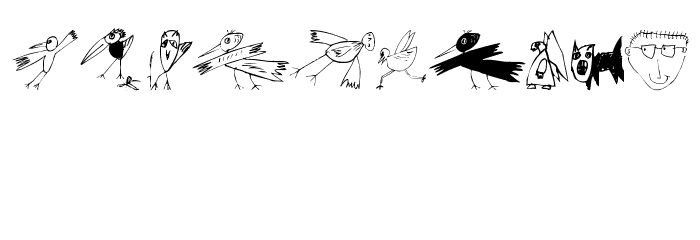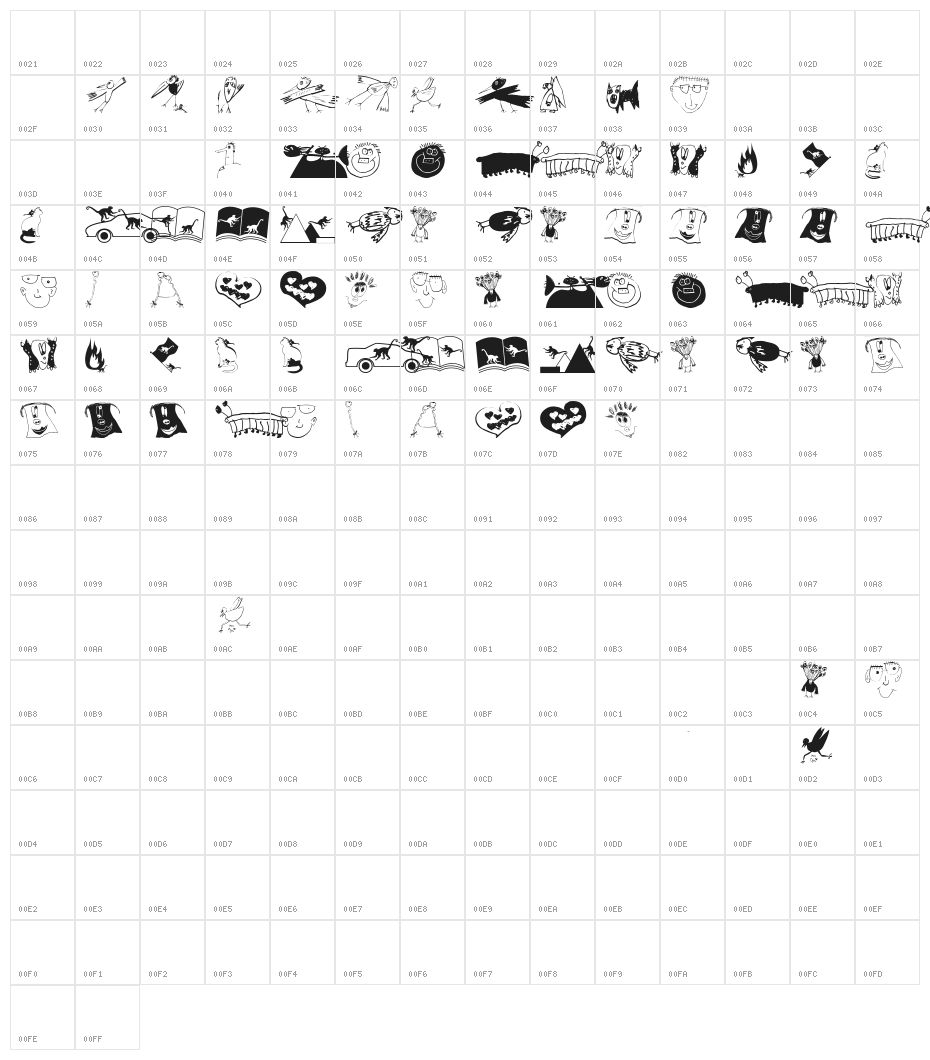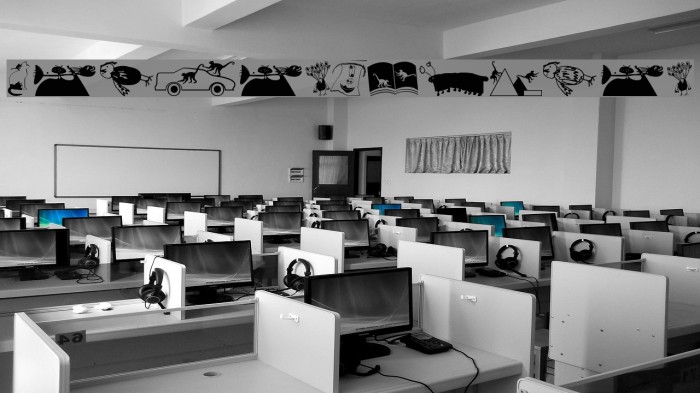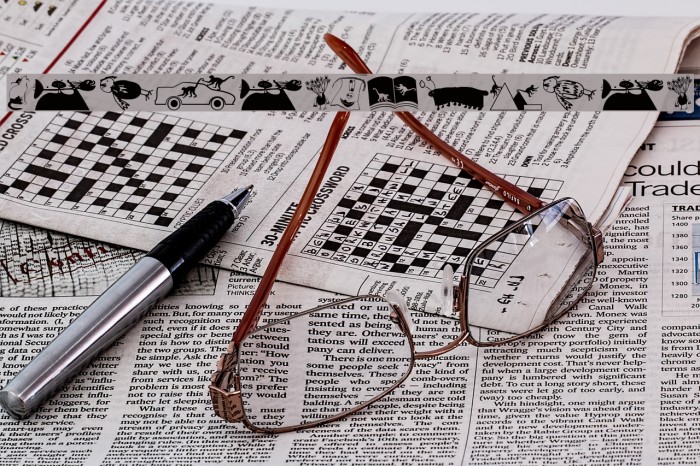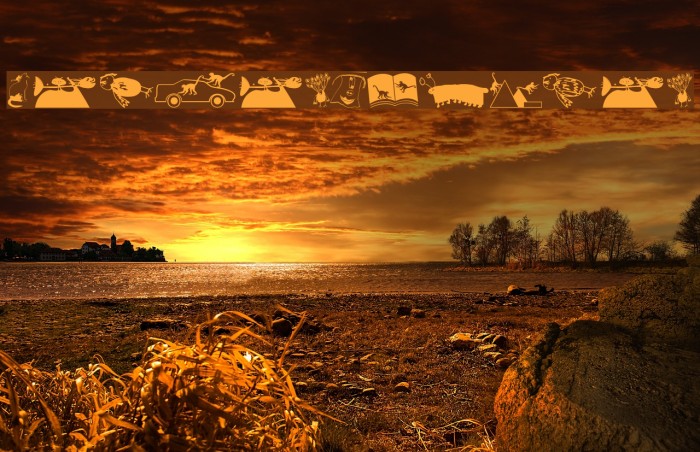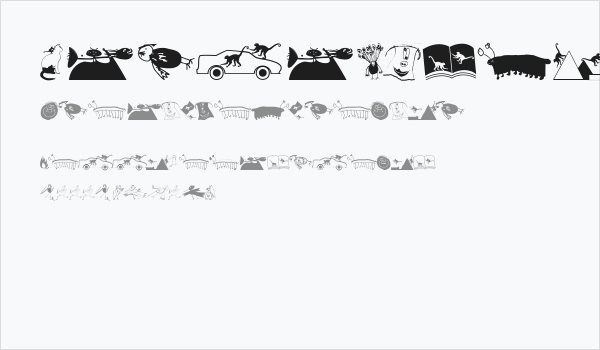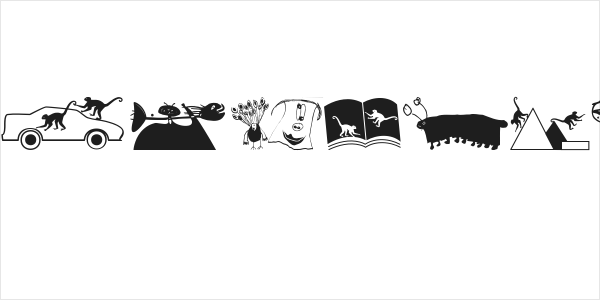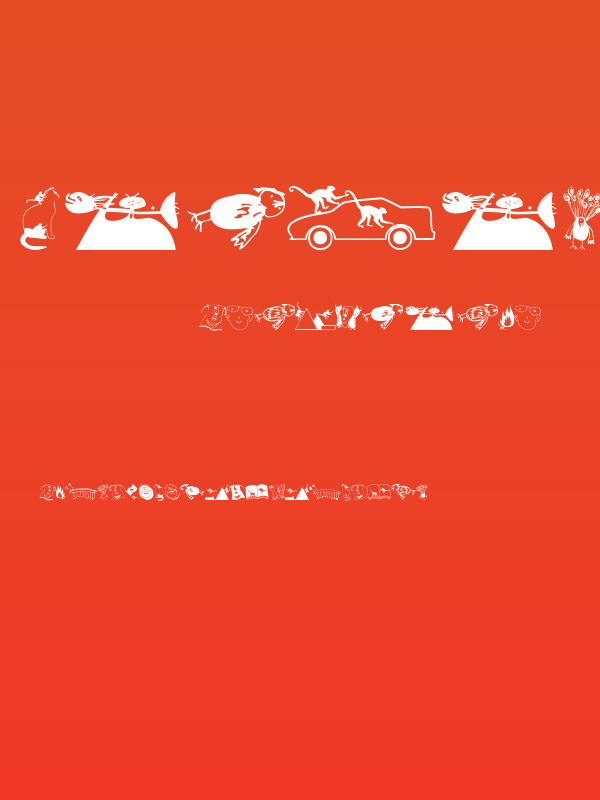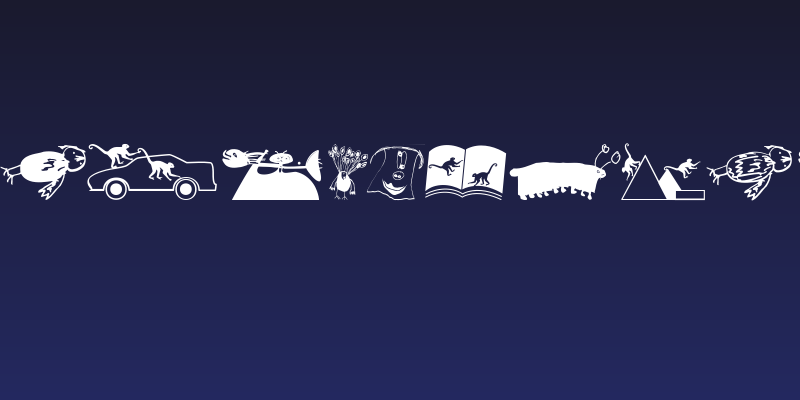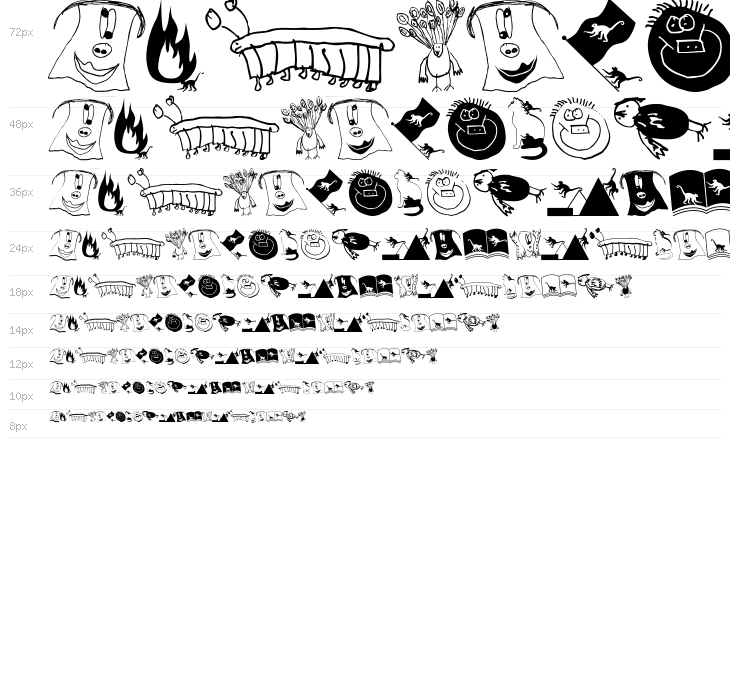
KarlasUndOpas Font
KarlasUndOpas Description
This font is a whimsical and playful collection of hand-drawn illustrations rather than traditional alphanumeric characters. Each symbol is a unique, cartoon-like drawing, featuring a variety of quirky and imaginative designs. The characters include a mix of animals, abstract shapes, and humorous figures, each with its own distinct personality. The style is reminiscent of doodles or sketches, with a casual and informal appearance. The illustrations are bold and expressive, making them suitable for creative and artistic projects that require a touch of humor and originality.
| Use Case | Logos, Posters, Artistic Projects |
| Proposed Projects | Ideal for children's books, greeting cards, creative posters, and any project that benefits from a fun and artistic touch. |